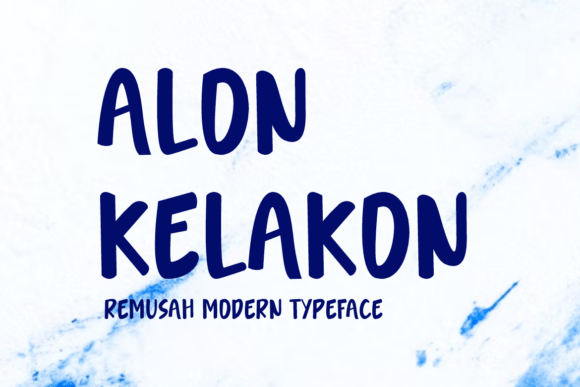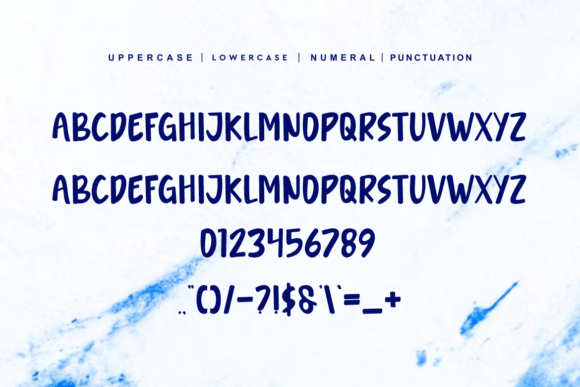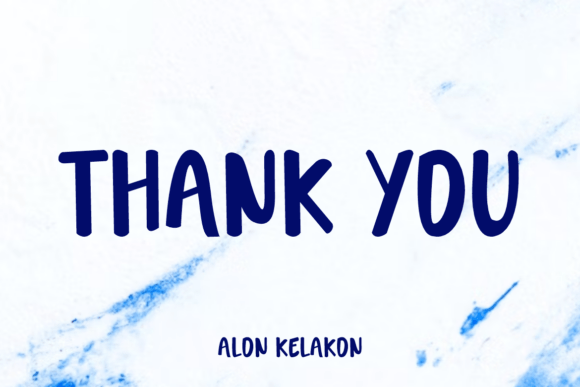
Introduction to Remusah Font
As a designer, there’s nothing quite like the rush of bringing a creative project to life. It’s that moment when your imagination meets reality, and your vision starts to take shape. For many of us, it’s the font that sets the tone for the entire design. That’s why we’re excited to introduce you to the Remusah Font, a game-changing addition to your design arsenal.
By incorporating the Remusah Font into your design resource library, you’ll be able to bring a level of creativity and flair to your projects that’s hard to find with more generic fonts. Plus, with its transparent background and high-quality design, you’ll be able to achieve a level of visual sophistication that’s sure to impress.
Key Features of Remusah Font
- Includes a comprehensive set of characters, including uppercase and lowercase letters, numbers, and punctuation marks
- Designed with a unique, modern aesthetic that adds a touch of sophistication to any design project
- Supports a wide range of languages, making it a versatile design resource for global creative projects
Honest Review: Remusah Font
As a designer, I’m always on the lookout for unique and high-quality design resources to elevate my creative projects. Recently, I came across the Remusah Font, and I must say it’s been a game-changer for my designs. Here’s my honest review:
- ✨ The Remusah Font has a beautiful, elegant design that’s perfect for a wide range of creative projects, from fashion to art.
- ✨ The font is highly versatile, with a transparent background that makes it easy to use on any design surface.
- ⚠️ The font is limited in its style variations, which may not be suitable for designers looking for a more extensive font library.
- ⚠️ The font may not be the best choice for projects requiring a bold or dramatic font style.
Overall, I’m thoroughly impressed with the Remusah Font. Its high quality and versatility make it an excellent design resource for any creative project. While it may have some limitations, I highly recommend it to designers looking for a unique and elegant font to add to their toolkit.
Getting the Most Out of Remusah Font
Experiment with different font sizes, styles, and colors to get the most out of the Remusah Font. Use it in combination with other design resources to create visually appealing and creative projects.
The Remusah Font is suitable for a wide range of design projects, including logos, business cards, and social media graphics. Its transparent background and high quality design make it an ideal choice for creative professionals and hobbyists alike.
Is the Remusah Font a high-quality design resource?
Yes, the Remusah Font is a high-quality design resource that has been carefully crafted to provide a unique and stylish look for your creative projects. Its high-quality design ensures that it will print clearly and consistently, making it perfect for both digital and print-based applications.